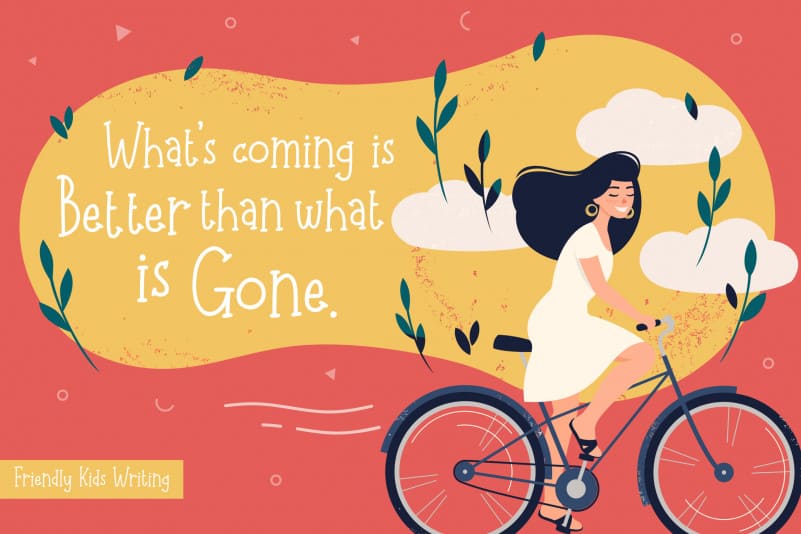
Adelaide Georgie Display Font
Adelaide Georgie Display Font is a cute and friendly display font. This original look will appeal to a wide range of crafty ideas, from letterheads and titles, to stationery.